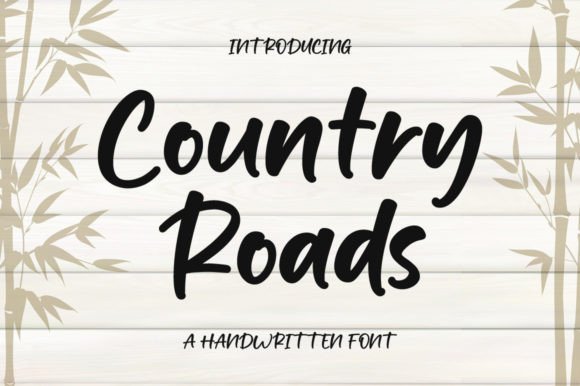
**Country Roads Font: A Journey Through Enchanting Script**
In the realm of typography, there lies a font that captures the essence of rustic charm and timeless elegance - Country Roads Font. This script font, meticulously crafted by Graphix Line Studio, is a testament to the beauty and versatility of handwritten artistry.
Country Roads Font is not just a collection of letters and symbols; it's an invitation to embark on a creative odyssey, where words dance gracefully across the page, evoking emotions and painting vivid pictures. Its delicate strokes and flowing curves lend an air of sophistication to any project, making it the perfect choice for those seeking a font that speaks to the heart.
**A symphony of aesthetics for every endeavor:**
Country Roads Font's versatility knows no bounds, adapting seamlessly to a multitude of creative pursuits. Whether you're a passionate writer seeking to add a touch of rustic charm to your prose, a dedicated graphic designer seeking unique typography for your latest project, or an enthusiastic crafter yearning for fonts that add a personal touch to your handmade creations, Country Roads Font has your back.
**Transport yourself to a world of rustic beauty:**
With each stroke of Country Roads Font, you'll find yourself transported to a world of rustic beauty, where charming cottages nestle amidst rolling hills, and wildflowers sway gently in the breeze. This enchanting font captures the essence of country living, adding a touch of nostalgia and warmth to your creative endeavors.
**A font that speaks to your heart:**
Country Roads Font possesses an innate ability to connect with your emotions, evoking a sense of longing for simpler times and the beauty of nature. Its delicate lines and graceful curves create a visual symphony that resonates with the soul, leaving an indelible mark on your creative projects.
**A font that's easy on the eyes:**
In a world where visual clutter often overwhelms our senses, Country Roads Font emerges as a soothing balm for the eyes. Its carefully crafted characters maintain a perfect balance between legibility and aesthetics, ensuring that your message is conveyed with clarity and elegance.
**Step into a world of endless creative possibilities:**
With Country Roads Font at your fingertips, creativity knows no limits. Dive into the world of calligraphy, where your words take on a life of their own, dancing across the page with grace and fluidity. Explore the art of hand-lettering, adding a personal touch to your handmade cards, invitations, and other creative projects.
Harness the beauty and versatility of Country Roads Font to transform your creative visions into stunning realities. Embrace the charm of rustic elegance, connect with your emotions, and elevate your projects to new heights of creativity. Embark on a journey with Country Roads Font, where beauty and functionality intertwine, leaving an unforgettable impression on all who behold it.